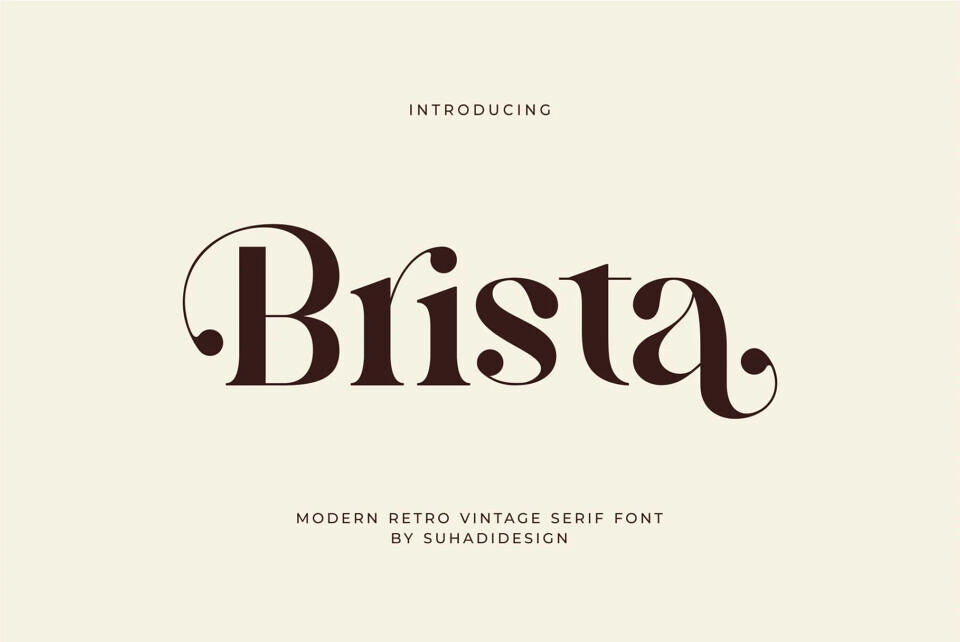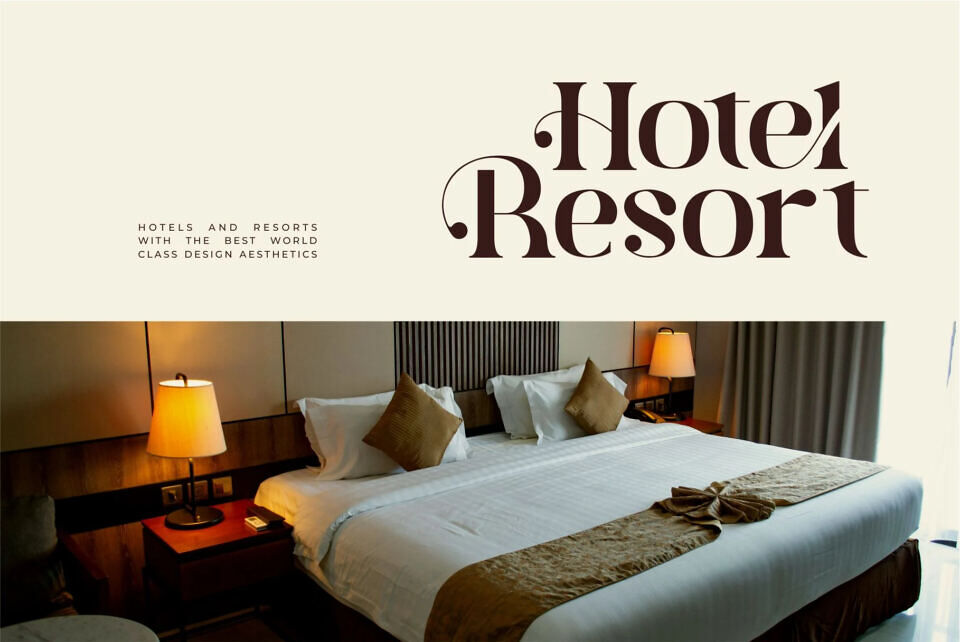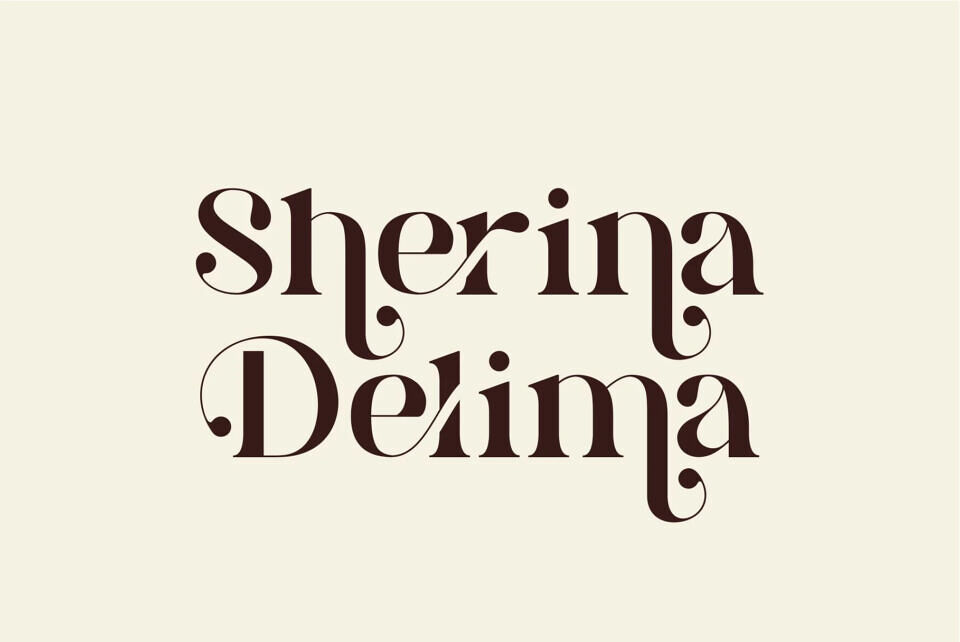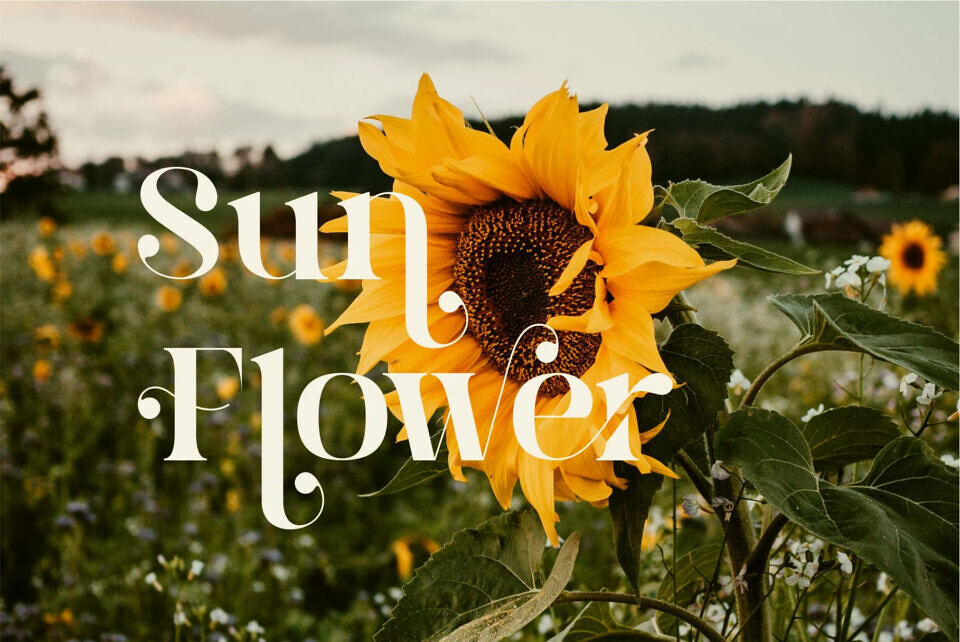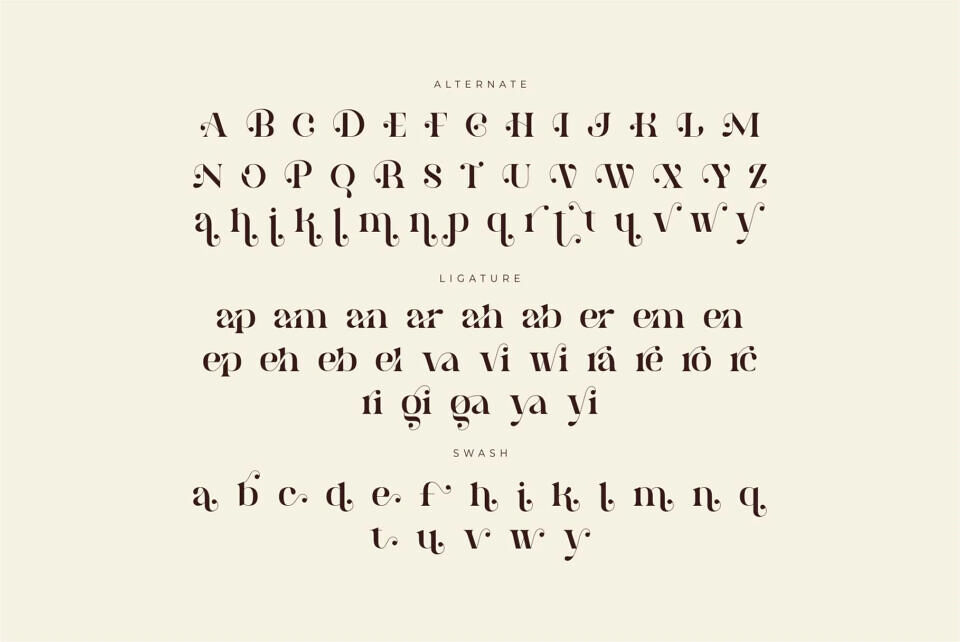
Brista Font
Brista is a classy and contemporary serif font. With its elegant design and stylish ligatures, this font has become a favorite in the market. We have kept this font looking elegant, classy, ​​and stylish.
Brista is the perfect choice for brands, cosmetics, boutiques, beauty, magazines, designs, books, publications, branding, brand names, business cards, social media, classy designs, newspapers, branding, beauty, and other projects. Brista is here to elevate the quality of your designs.